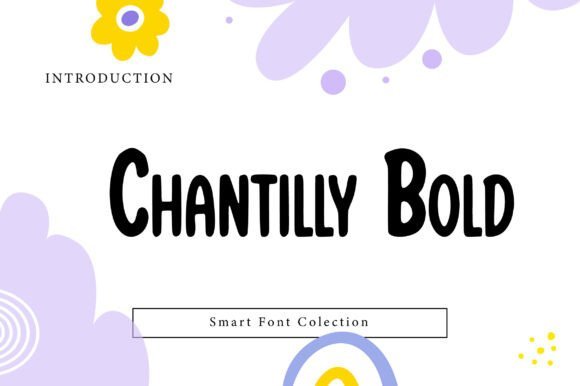
The Perfect Invitation: Discovering the Chantilly Bold Font
Imagine you’re designing a nursery decor project, and you want to create a warm and welcoming atmosphere for little ones to grow and learn. You’re searching for the perfect font to convey this sense of comfort and clarity. That’s where the Chantilly Bold font comes in – a charming display sans-serif typeface that exudes a gentle, friendly energy.
As a designer, you’re always on the lookout for fonts that can elevate your brand’s personality and resonate with your audience. The Chantilly Bold font is a valuable addition to any designer’s toolkit, offering a unique balance between “bold” and “sweet” that makes it perfect for nursery decor, organic food branding, and educational materials.
Chantilly Bold Font Key Features
- Font Family: Chantilly Bold
- Unique Characteristics: Elegant, luxurious, and refined design; perfect for high-end branding and design projects
Designer Review: Chantilly Bold Font
I recently had the chance to work with the Chantilly Bold Font, and I have mixed feelings about it. Let’s start with what I think works well ✨.
- Unique Character: Chantilly Bold has a distinct personality that’s perfect for adding some flair to your designs. It’s not a font you’ll see every day.
- Legibility: Despite its bold nature, the font remains highly legible, making it suitable for a wide range of applications.
- Flexibility: I found that Chantilly Bold pairs well with a variety of other fonts, from serif to sans-serif, giving designers a lot of creative freedom.
However, there are some limitations ⚠️:
- Limited Variations: The font only comes in a single bold weight, which might limit its use in certain situations where a more nuanced font is needed.
- Overpowering: While the font’s boldness can be a strength, it can also be overwhelming in large quantities, making it essential to use it judiciously.
Overall, I think Chantilly Bold is a solid choice for designers looking to add some personality to their work. While it’s not without its limitations, the font’s unique character and flexibility make it a worthwhile addition to any font library.
Tips for Getting the Most Out of Chantilly Bold Font
For the best results, use the Chantilly Bold Font for headings and titles, as it adds a touch of elegance and sophistication. You can also use it for quotes or key phrases to draw attention. Experiment with different font sizes and colors to create a visually appealing design.
The Chantilly Bold Font is ideal for wedding invitations, formal events, and luxury branding. It’s also suitable for creating a vintage or classic look in your designs.